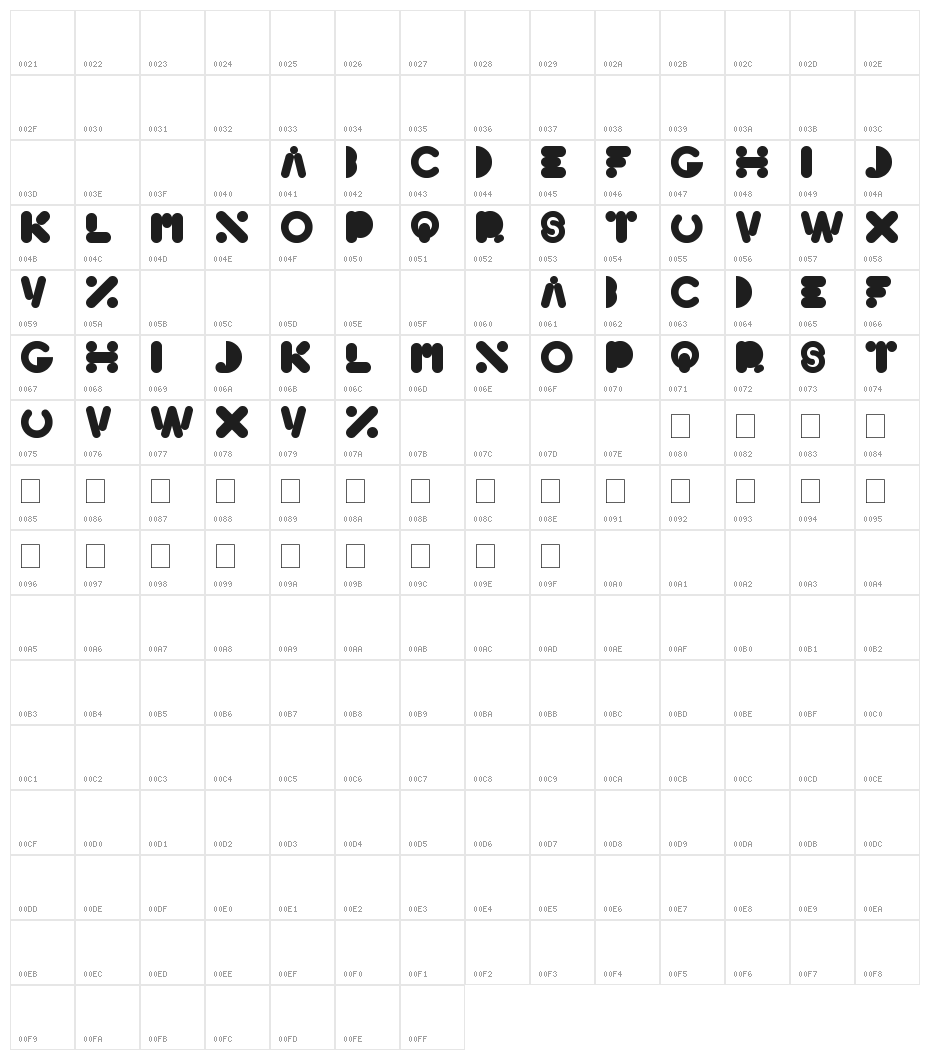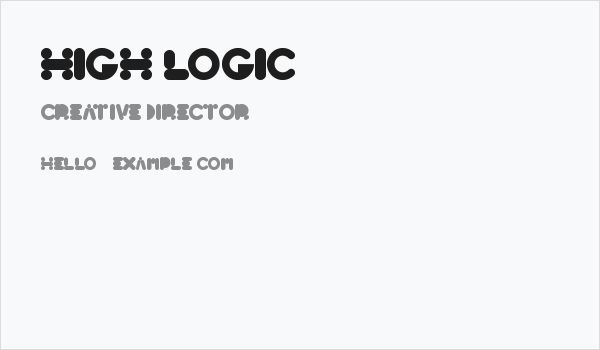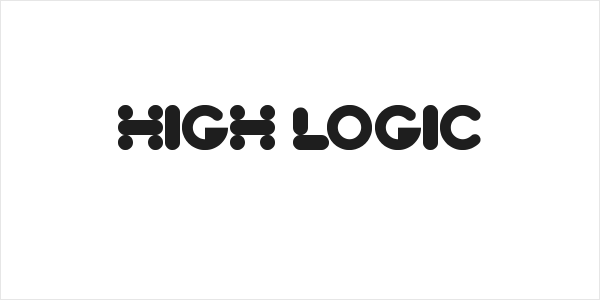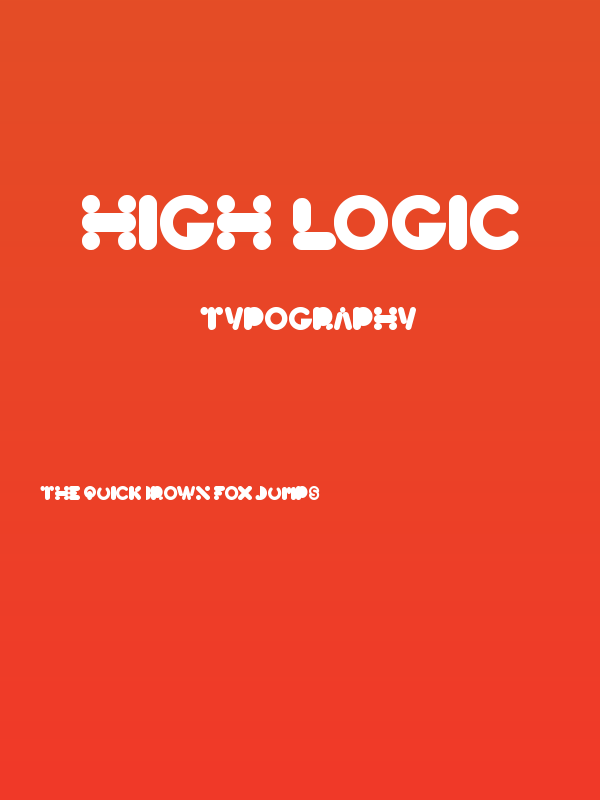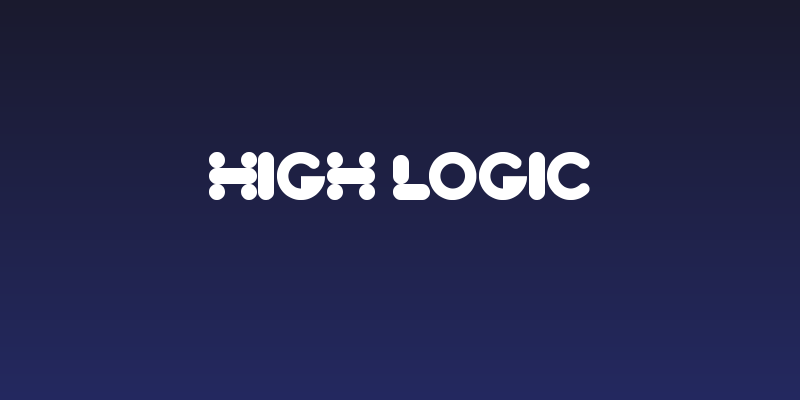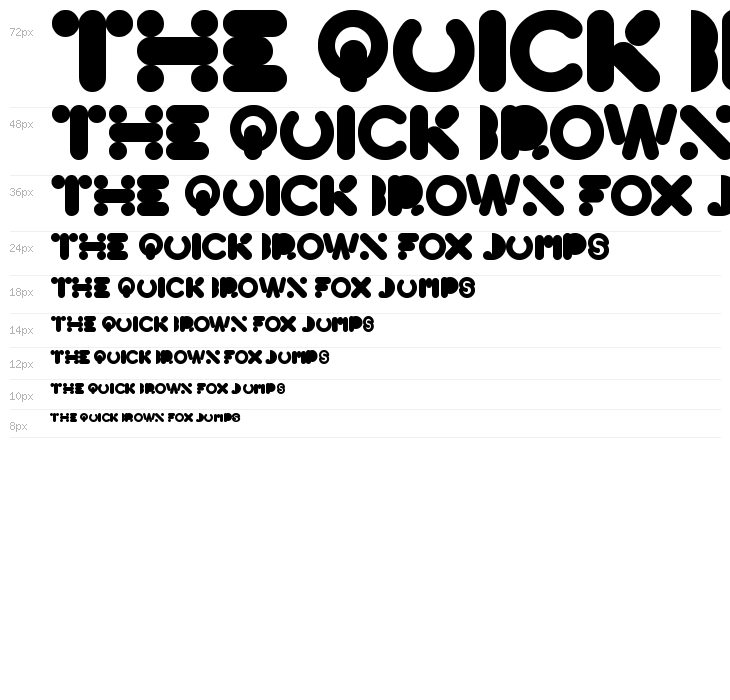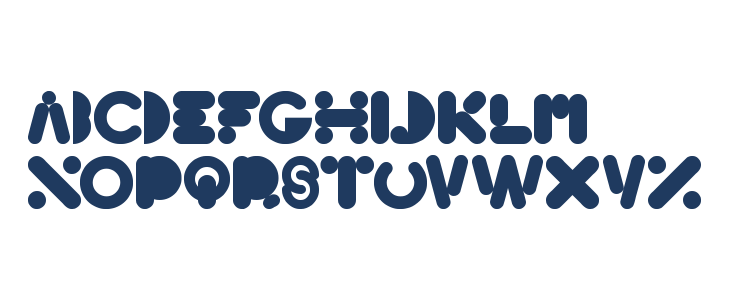
High Logic Font
High Logic Description
This font features a bold and playful design with a unique geometric style. Each character is composed of solid, rounded shapes that create a sense of cohesion and rhythm. The letters are constructed with a combination of circles and straight lines, giving them a modern and abstract appearance. The font's distinctiveness is further enhanced by its uniform stroke width, which contributes to its bold and impactful presence. The overall design is visually striking, making it suitable for creative and artistic projects that require a touch of modernity and flair.
| Use Case | Logos, Headlines, Posters |
| Proposed Projects | Ideal for branding, posters, album covers, and creative digital artwork. |